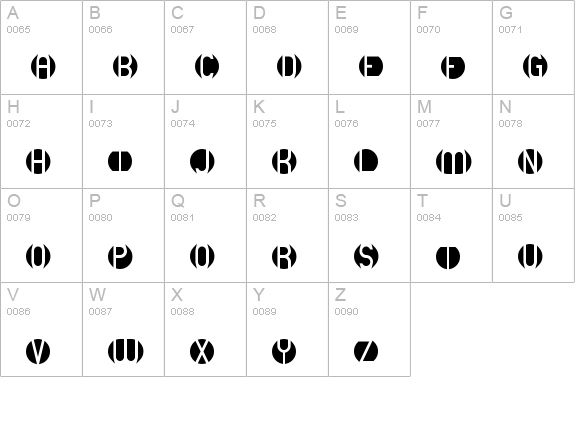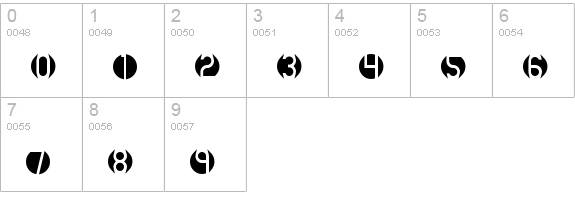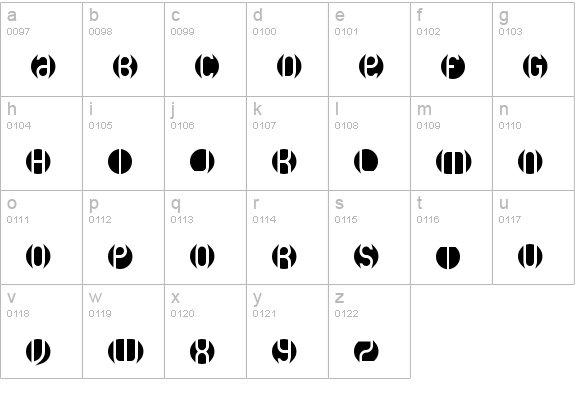
DB Layer 2 BRK Font Details
DB Layer 2 BRK font is a modern and stylish typeface that is perfect for adding a touch of sophistication to your designs. With its bold and futuristic look, this font is sure to make a statement and grab the attention of your audience. Whether you are creating a logo, website, poster, or any other design project, DB Layer 2 BRK font will help you stand out from the crowd. What's even better is that this font is available for free download at FontsMarket.com. So you can easily get your hands on this versatile font and start using it in your projects right away. Don't miss out on the opportunity to enhance your designs with the eye-catching DB Layer 2 BRK font today!